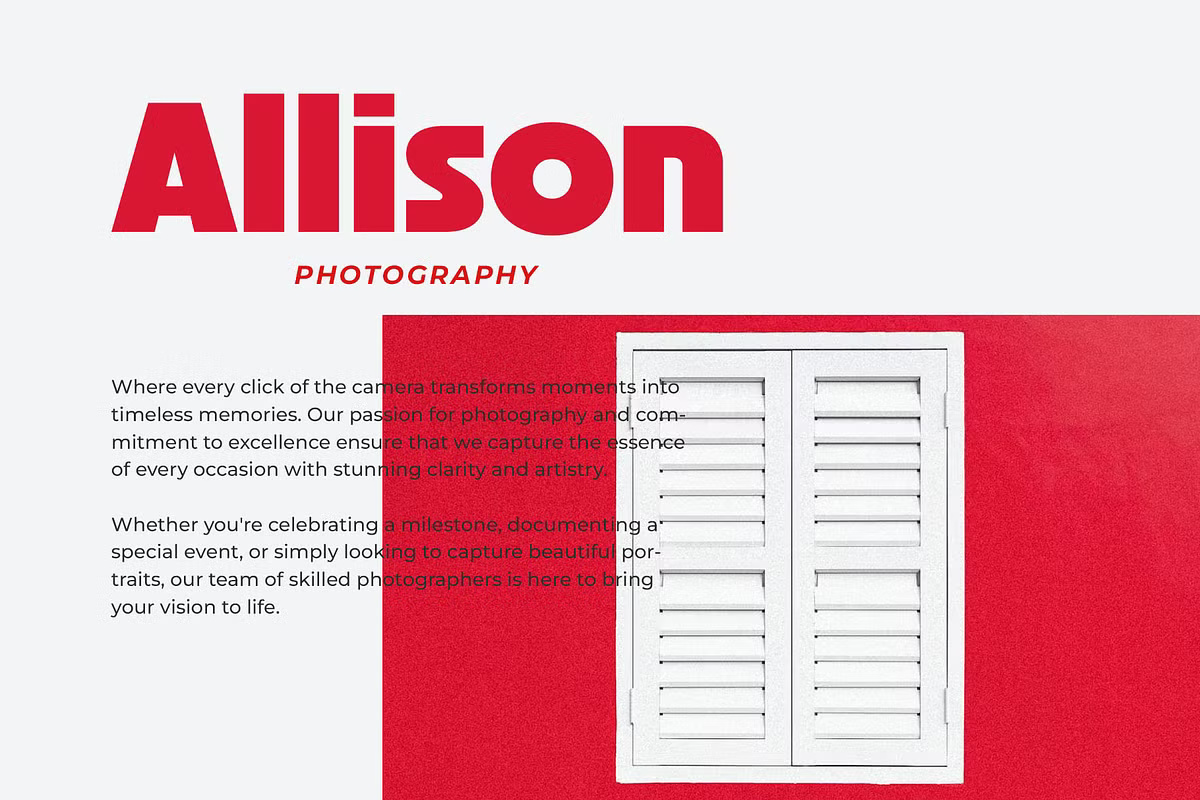
Milner is heavy, but it is not a plain geometric sans. Typeformers gave the strokes a slight taper, so letters like the A, N and V end in wedge-shaped cuts, and the lowercase has a lively, almost hand-cut rhythm. The cover sets “MILNER” in cream across a red, rain-spotted surface, with the tagline “strong, bold, clean”.
The “Allison Photography” mock-up shows it as a brand name in red above two paragraphs of text and a photo of white shutters on a red wall. It carries the page well. The character sheet covers upper and lowercase, numerals and the usual punctuation, all in the same single heavy weight.
Best uses for Milner
- Photography and creative studio logos
- Posters and flyers
- Magazine headlines
- Packaging
- Book covers
Milner pairs well with a light sans. Montserrat works for body text, as in the photography mock-up. Work Sans keeps it modern. For a serif contrast, try Libre Baskerville.
Milner Sans Serif Font